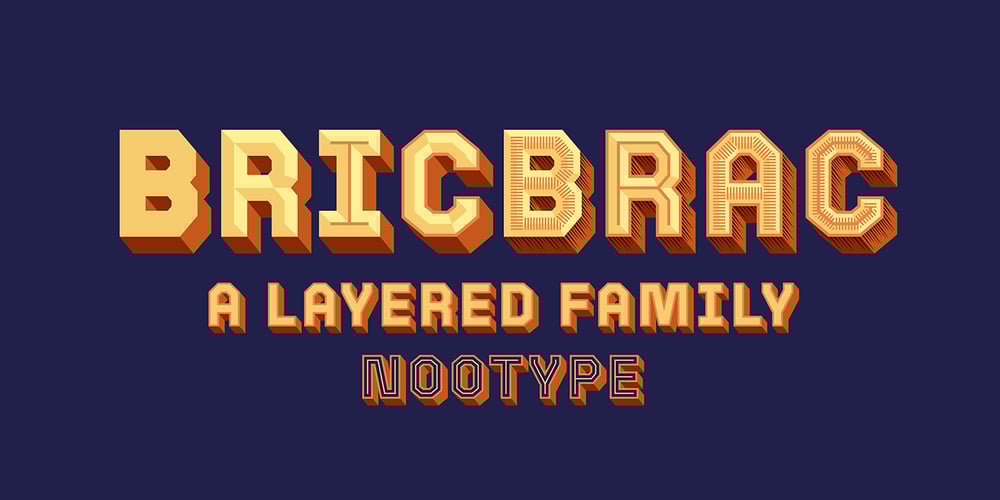
Bricbrac Font Family was designed by Nico Inosanto and published by Nootype. Bricbrac contains 9 styles and family package options. Bricbrac is a layered family that allows different combinations. The typeface is full-cap, with a squared style, the font doesn’t contains any curve. The different styles gives 3D effect to the letters and the typeface user can play with the Lines and Pattern effect. Bricabrac consists in a 9 styles family. This is a monoline typeface and the variety of combinations and style make it perfect for magazine and poster design. The fonts have an extended characters set to support Central, Eastern and Western European languages. Notice: The spacing is optimized for the version with volume, therefore the fonts should always be used with the 3d volume effect.